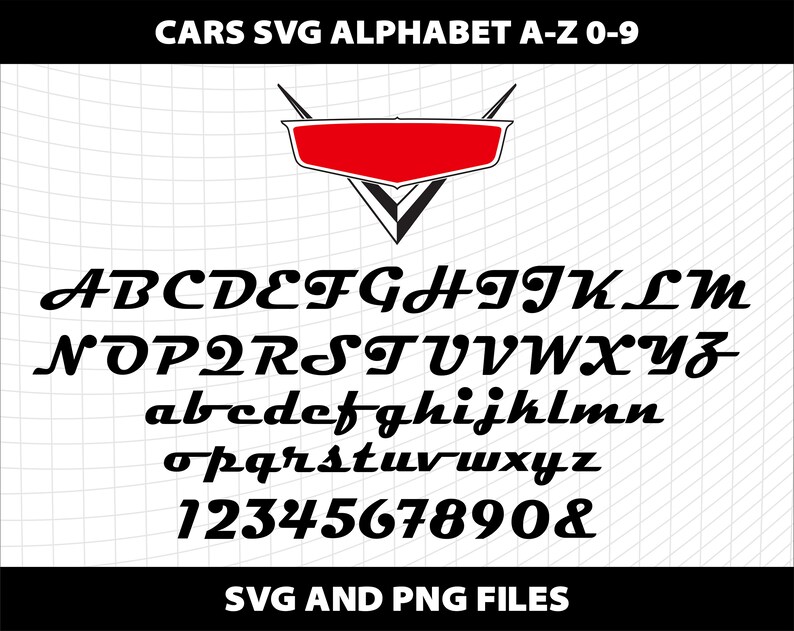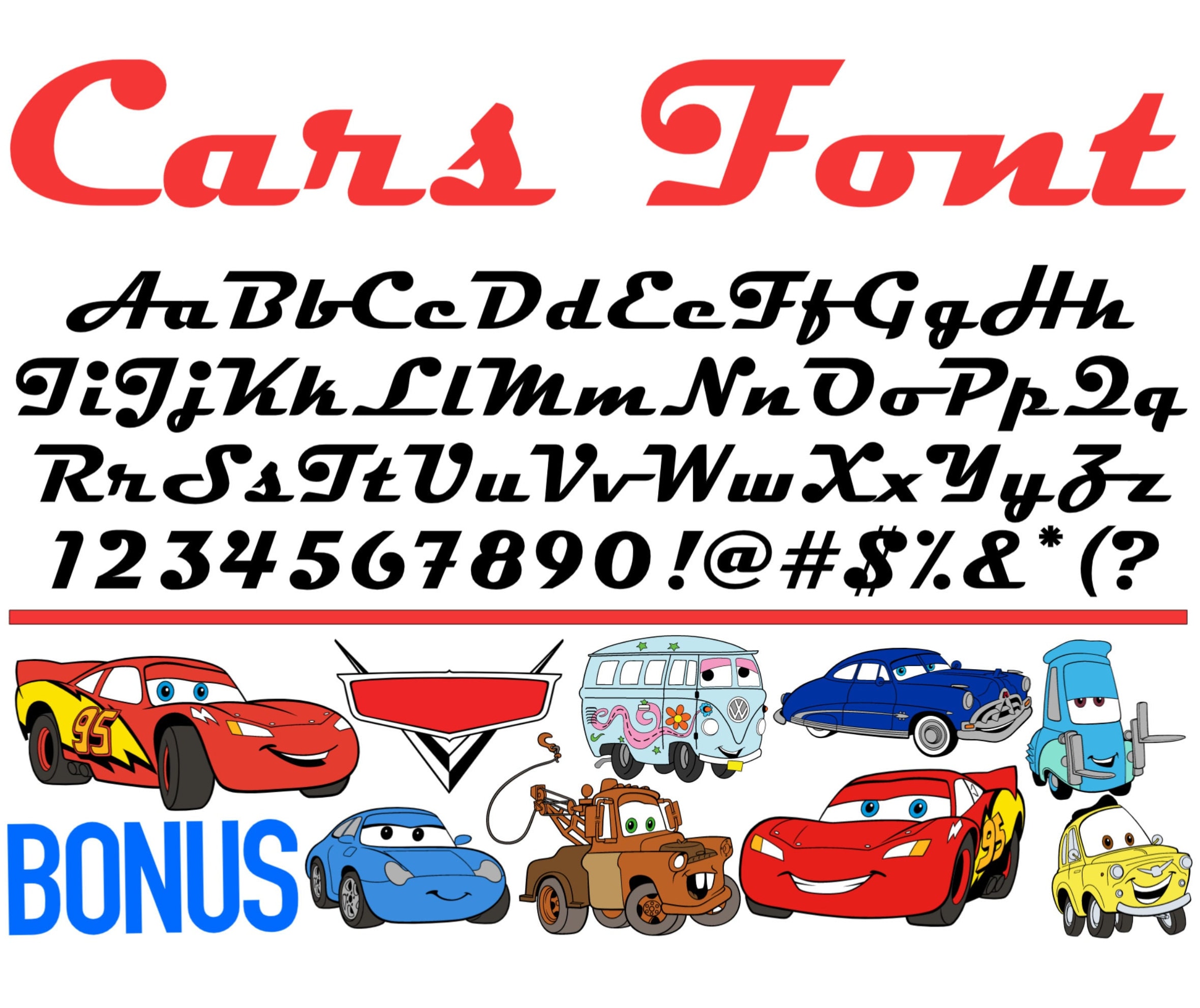
Mcqueen Cars Font
Mcqueen Cars Font - Browse by alphabetical listing, by style, by author or by popularity. Click to find the best 167 free fonts in the cars style. Every font is free to download! Archive of freely downloadable fonts. Browse by alphabetical listing, by style, by author or by popularity. Magneto bold by leslie cabarga is a font based on the title logo from the movie cars. Browse by alphabetical listing, by style, by author or by popularity.
Click to find the best 167 free fonts in the cars style. Browse by alphabetical listing, by style, by author or by popularity. Browse by alphabetical listing, by style, by author or by popularity. Archive of freely downloadable fonts. Magneto bold by leslie cabarga is a font based on the title logo from the movie cars. Browse by alphabetical listing, by style, by author or by popularity. Archive of freely downloadable fonts. Every font is free to download!
Every font is free to download! Magneto bold by leslie cabarga is a font based on the title logo from the movie cars. Archive of freely downloadable fonts. Browse by alphabetical listing, by style, by author or by popularity. Browse by alphabetical listing, by style, by author or by popularity. Click to find the best 167 free fonts in the cars style. Archive of freely downloadable fonts. Browse by alphabetical listing, by style, by author or by popularity.
Lightning Mcqueen Font
Magneto bold by leslie cabarga is a font based on the title logo from the movie cars. Browse by alphabetical listing, by style, by author or by popularity. Archive of freely downloadable fonts. Click to find the best 167 free fonts in the cars style. Archive of freely downloadable fonts.
Magneto bold by leslie cabarga is a font based on the title logo from the movie cars. Every font is free to download! Click to find the best 167 free fonts in the cars style. Archive of freely downloadable fonts. Browse by alphabetical listing, by style, by author or by popularity.
Every font is free to download! Magneto bold by leslie cabarga is a font based on the title logo from the movie cars. Browse by alphabetical listing, by style, by author or by popularity. Archive of freely downloadable fonts. Archive of freely downloadable fonts.
Browse by alphabetical listing, by style, by author or by popularity. Archive of freely downloadable fonts. Browse by alphabetical listing, by style, by author or by popularity. Magneto bold by leslie cabarga is a font based on the title logo from the movie cars.
Archive of freely downloadable fonts. Magneto bold by leslie cabarga is a font based on the title logo from the movie cars. Browse by alphabetical listing, by style, by author or by popularity. Click to find the best 167 free fonts in the cars style. Browse by alphabetical listing, by style, by author or by popularity.
Every font is free to download! Browse by alphabetical listing, by style, by author or by popularity. Browse by alphabetical listing, by style, by author or by popularity. Magneto bold by leslie cabarga is a font based on the title logo from the movie cars. Click to find the best 167 free fonts in the cars style.
Every font is free to download! Browse by alphabetical listing, by style, by author or by popularity. Magneto bold by leslie cabarga is a font based on the title logo from the movie cars. Archive of freely downloadable fonts. Click to find the best 167 free fonts in the cars style.
Lightning Mcqueen Font
Magneto bold by leslie cabarga is a font based on the title logo from the movie cars. Browse by alphabetical listing, by style, by author or by popularity. Every font is free to download! Archive of freely downloadable fonts. Archive of freely downloadable fonts.
Browse by alphabetical listing, by style, by author or by popularity. Magneto bold by leslie cabarga is a font based on the title logo from the movie cars. Archive of freely downloadable fonts.